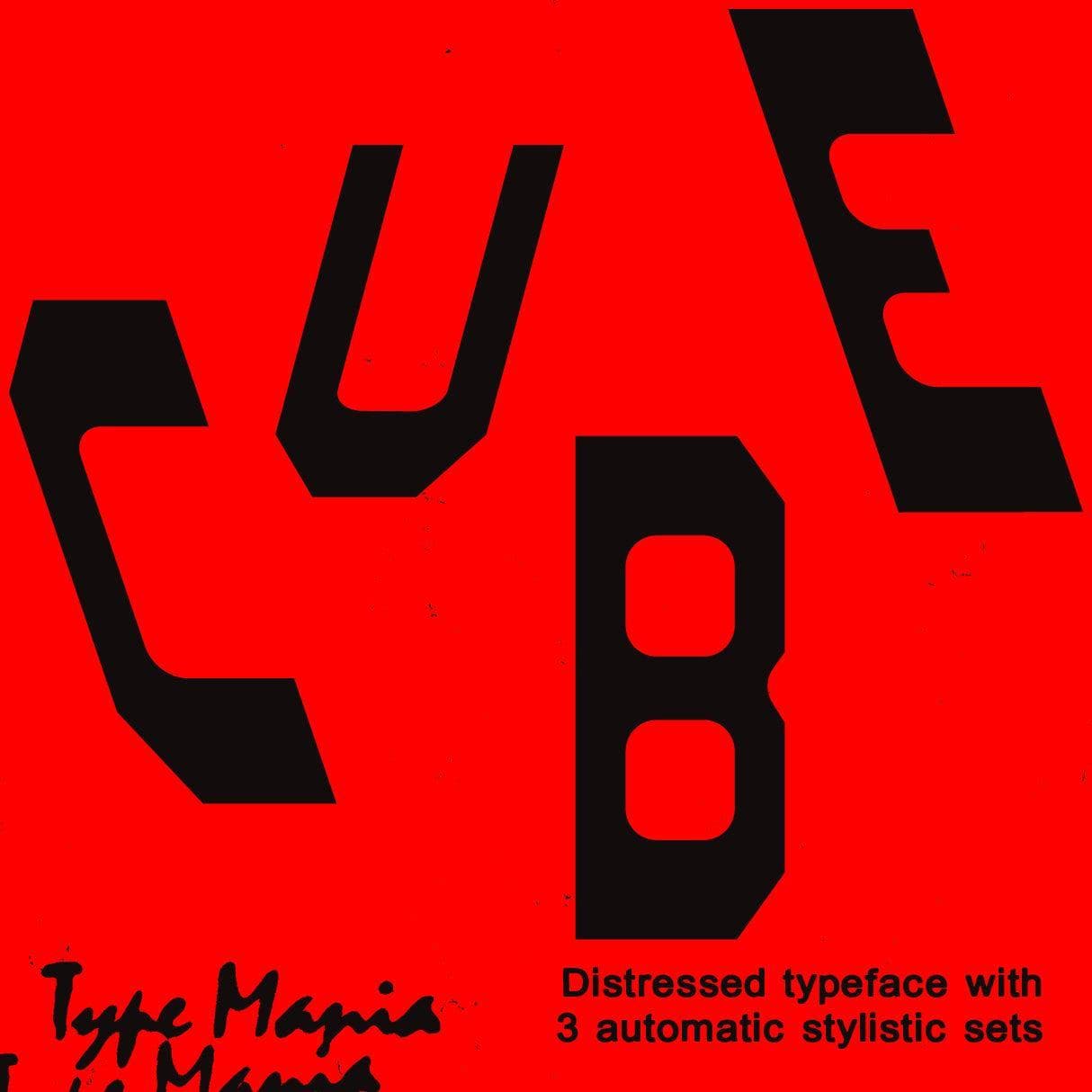
<p>A brutalist font with a twist, <strong>Cube TM</strong> blends rigid forms with unexpected rhythm 🌀 It uses blunt shapes based on brutalism, with variation introduced through three alternating stylistic sets. The result is structured, but never static 🫡 See if it works for your project!</p> <p><strong>Zip includes</strong></p> <ul> <li>OTF file</li> <li>TTF file</li> <li>WOFF2 file</li> </ul> <p><strong>OpenType features</strong></p> <ul> <li>3 stylistic sets</li> <li>The font is programmed to automatically shift between the stylistic sets</li> </ul> <p><strong>Languages</strong></p> <ul> <li>Basic Latin</li> <li>Western European</li> <li>Euro</li> <li>Central European</li> <li>Pan African Latin</li> </ul> <p><em>Graphic Design is Easy (with Type Mania)®</em></p>